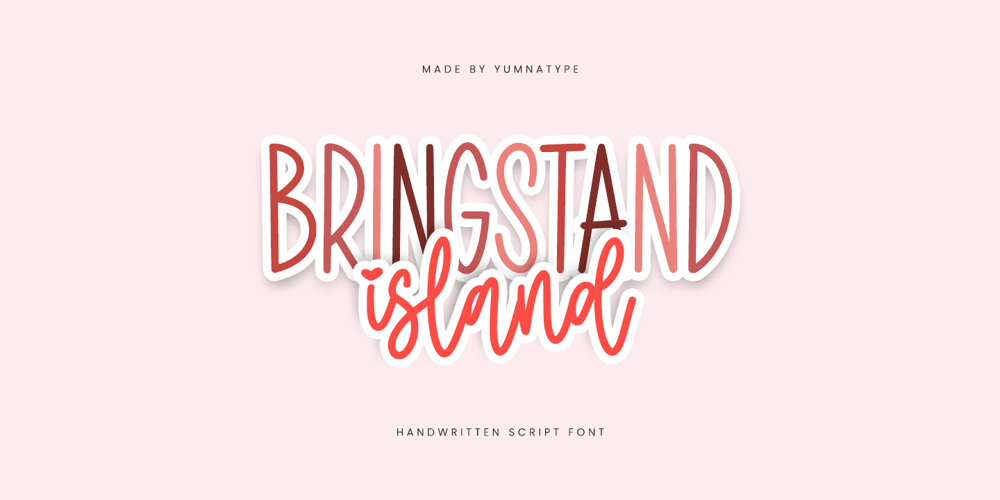
Bringstand Island
Bringstand Island font
Bringstand Island Font Family was designed by Donis Miftahudin and published by Yumna Type. Bringstand Island contains 1 styles and family package options. Bringstand Island is a sophisticated handwritten font that seamlessly blends simplicity and elegance. The uppercase letters of Bringstand Island are crafted in a simple, clean style, exuding clarity and modernity. These uppercase characters stand out with their straightforward design.In contrast, the lowercase letters of Bringstand Island are designed to be connected to each other. This connected style gives the font a graceful and cohesive appearance, perfect for longer passages of text where a natural handwriting feel is desired. Bringstand Island’s unique combination of simple uppercase letters and connected lowercase script makes it versatile and adaptable. In addition, enjoy the features here.Features: Alternates Ligatures Multilingual Supports PUA Encoded Numerals and Punctuations Bringstand Island fits in headlines, logos, posters, flyers, branding materials, print media, editorial layouts, and many more designs. Find out more ways to use this font by taking a look at the font preview.Thanks for purchasing our fonts. Hopefully, you have a great time using our font. Feel free to contact us anytime for further information or when you have trouble with the font. Thanks a lot and happy designing.